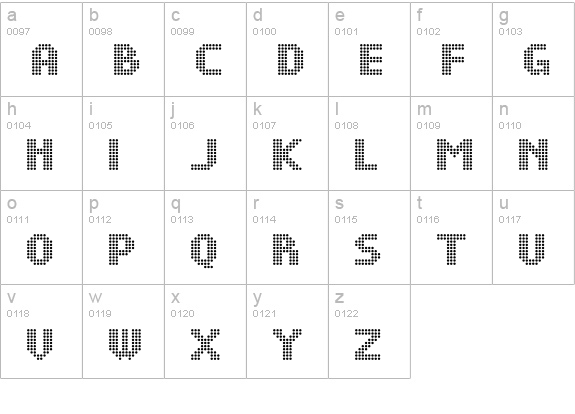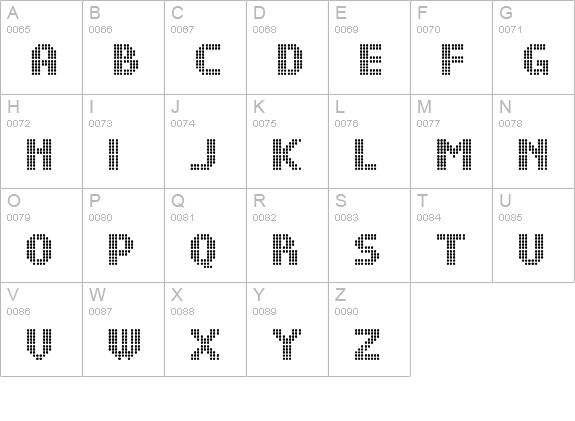
PointilleICG Font Details
PointilleICG is a charming and versatile font that adds a touch of whimsy to any design project. With its unique dotted style, this font is perfect for creating eye-catching headings, logos, and social media graphics. The playful yet sophisticated look of PointilleICG makes it ideal for a variety of projects, from branding to invitations to packaging. What's even better is that PointilleICG is available for free download at FontsMarket.com. You can easily access this delightful font and enhance your creative projects without breaking the bank. Whether you're a designer, blogger, or small business owner, PointilleICG is sure to add a fun and stylish element to your work. Download it today and let your creativity shine with this beautiful and free font.